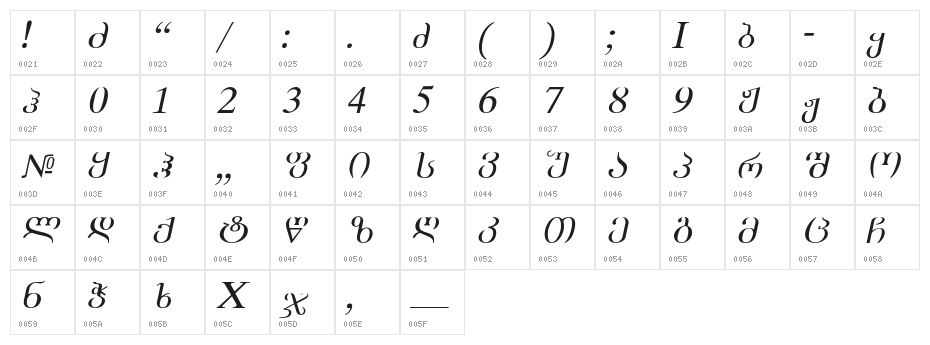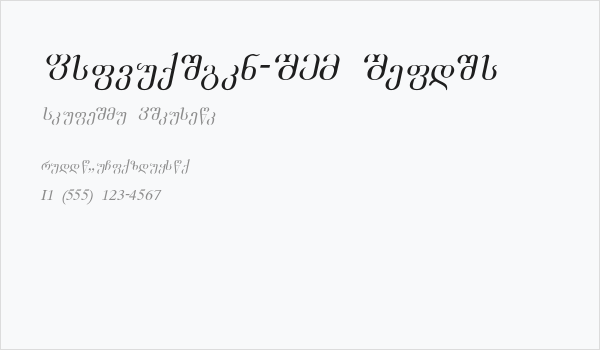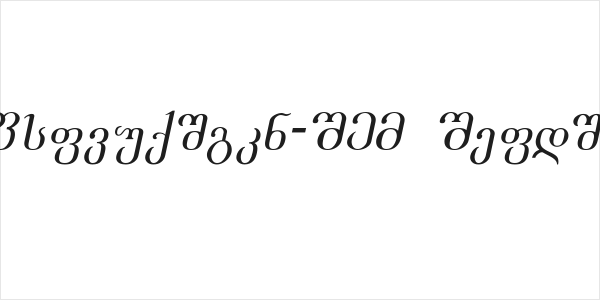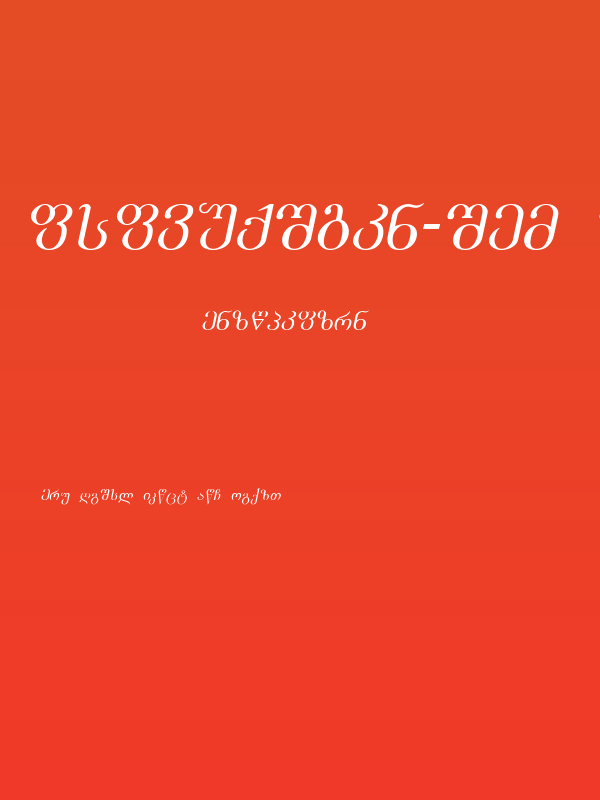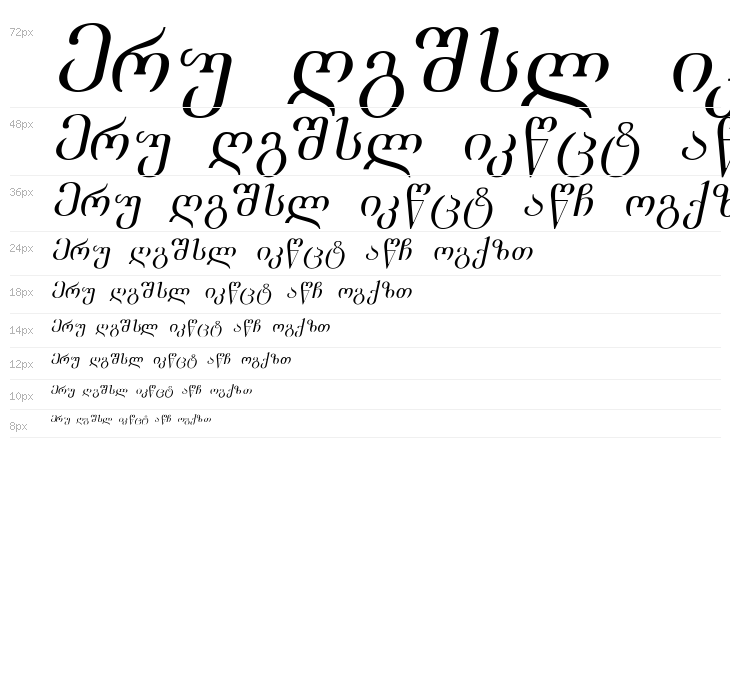
Academiury-ITV Italic Font
Academiury-ITV Italic Description
This font features a distinctive italic style with elegant curves and a flowing script-like appearance. The characters exhibit a high degree of slant, contributing to a dynamic and sophisticated look. The strokes are smooth and fluid, with moderate contrast between thick and thin lines, enhancing readability while maintaining an artistic flair. The numerals are consistent with the overall style, offering a cohesive visual experience. Special characters are designed with the same attention to detail, ensuring they complement the alphabetic characters seamlessly. This font is ideal for projects that require a touch of elegance and sophistication.
Overall StyleElegant
Use CaseLogos, Invitations, Editorial Design
Proposed ProjectsIdeal for wedding invitations, luxury branding, elegant posters, and editorial design.